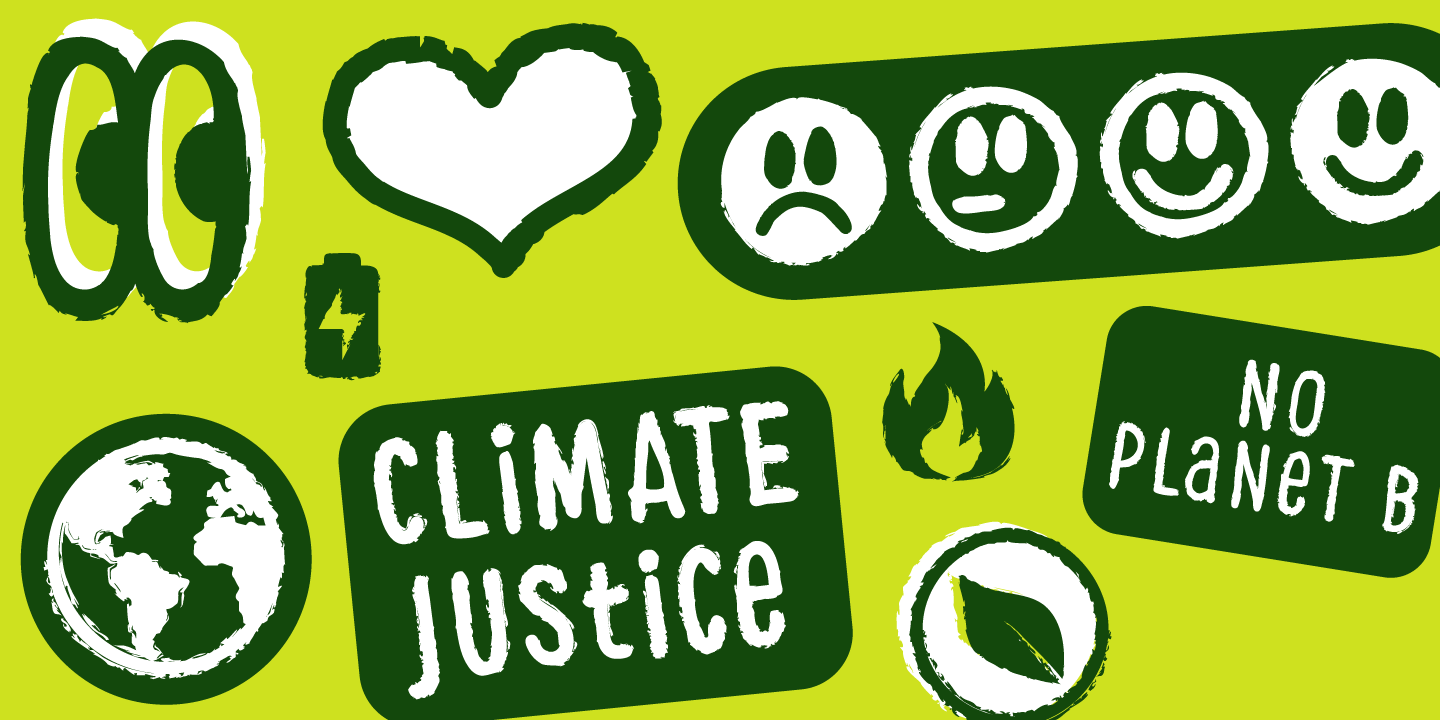
FONT | Climate Icon Font
The typeface Climate Icon Font is designed from 2023/2024 for the font foundry Typo Graphic Design by Manuel Viergutz as a political statement & for support the type community. THX to CreativesForFuture.de
The Display font is a collection with 100+ vector icons & slogans for the next demonstration. 💚